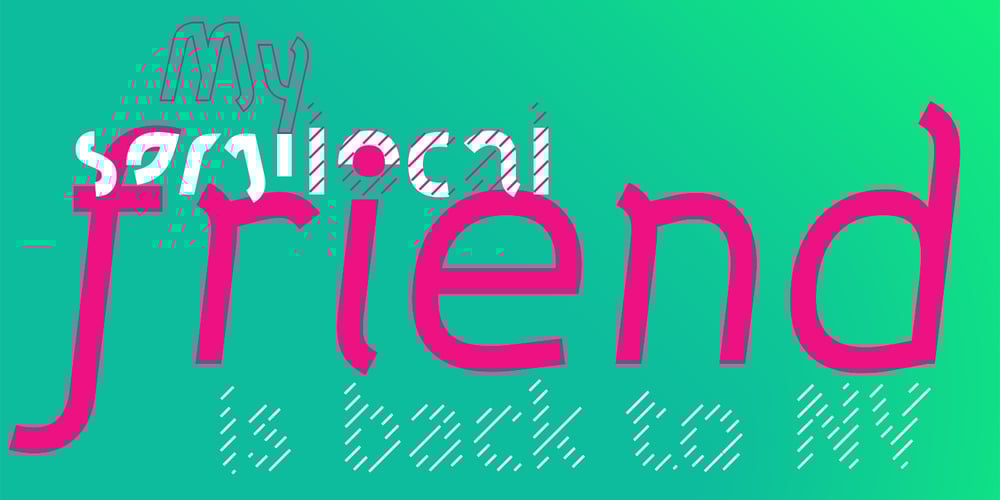
Etewut Sans Font Family was designed by Alex Etewut and published by Etewut. Etewut Sans contains 20 styles and family package options. Etewut foundry proudly presents Etewut sans family. It includes 20 font styles and each of them supports extended Latin, basic Cyrillic and modern Greece languages. Styles variety is from formal and bold to italic and decorative. More of all there are many ligatures and alternative symbols in each font. And finally the typeface has minuscule letters and numbers!